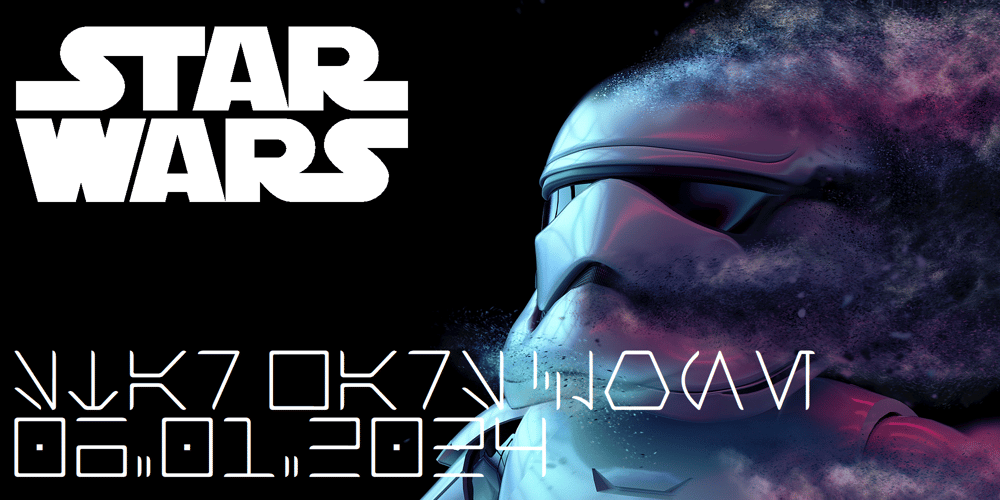
Ongunkan Star Wars Aurebesh Font Family was designed by Osman Nuri ALKAN and published by Runic World Tamgacı. Ongunkan Star Wars Aurebesh contains 1 styles and family package options. The Star Wars space opera universe, created by George Lucas, features some dialogue spoken in fictional languages. The lingua franca of the franchise is known in-universe as “Galactic Basic”, used to refer to the language of the film or work itself, be it English or a language that the work was dubbed or translated into.The Aurebesh alphabet is the primary constructed script seen throughout the franchise.There are dozens of anonymous fonts for this alphabet. But I reworked it with my own interpretation. In addition, I will also study the Sith Runic script and Mandalorian script.